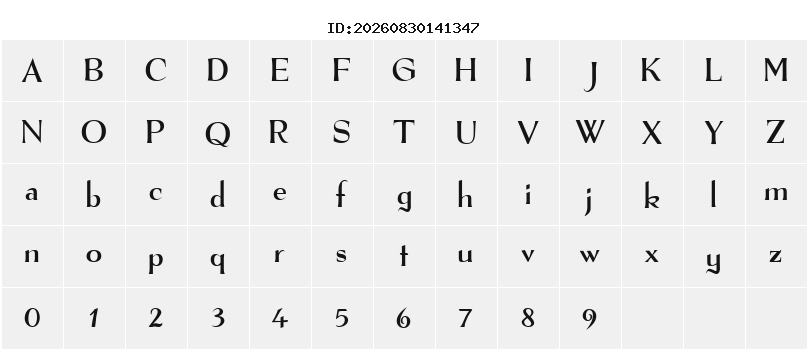
• Font Name: The Real Font
About The Real Font.ttf
The Real Font.ttf is a modern, elegant sans-serif font designed for ultimate readability and visual harmony. Perfect for branding, headlines, web design, and print materials.